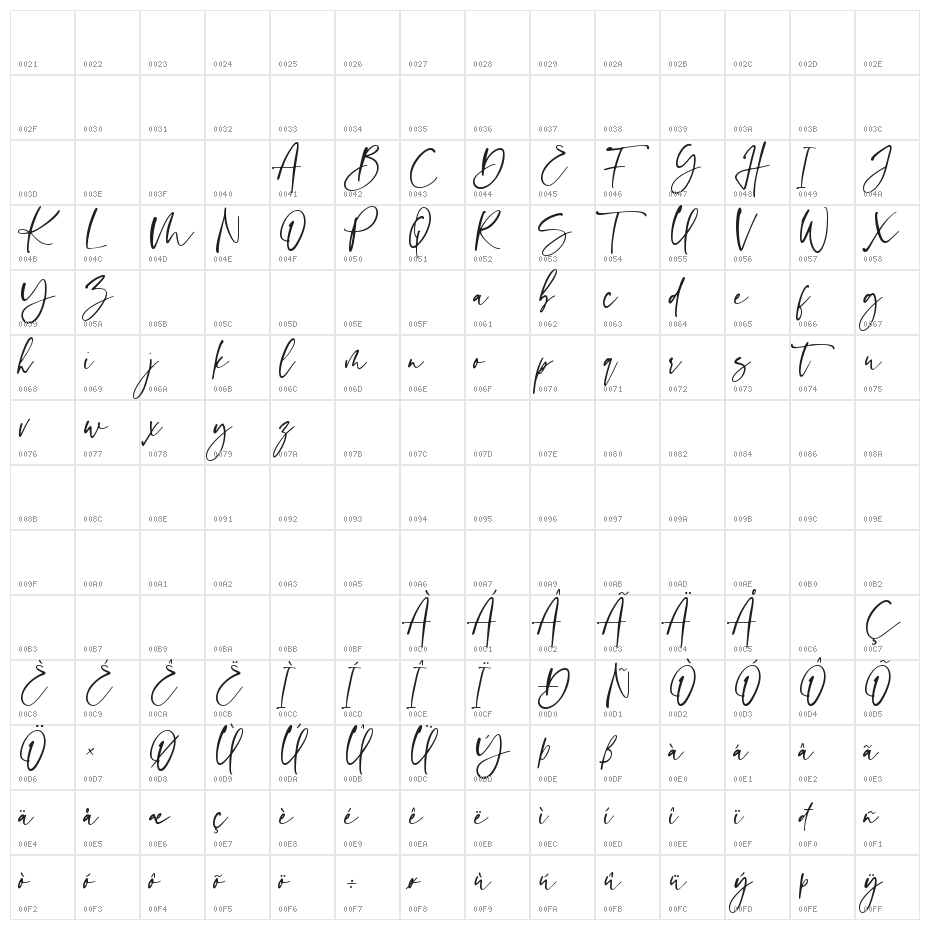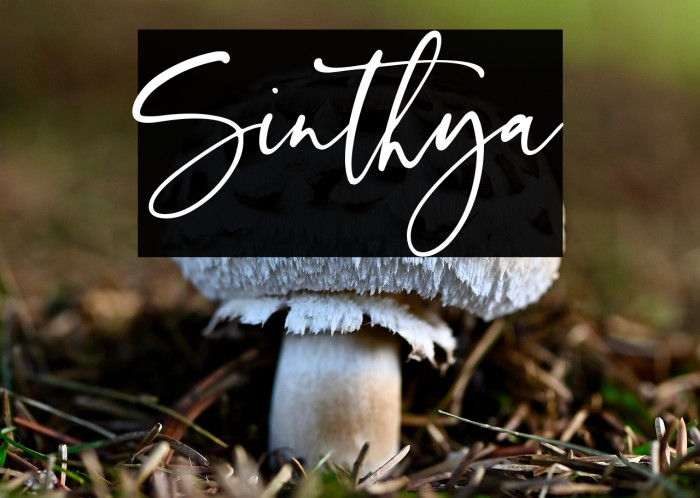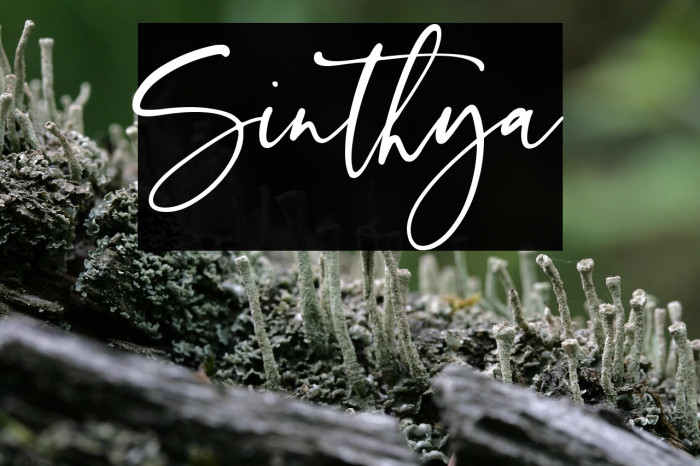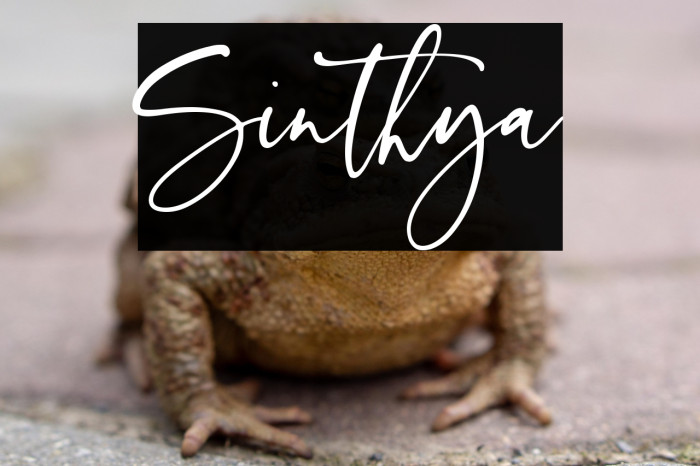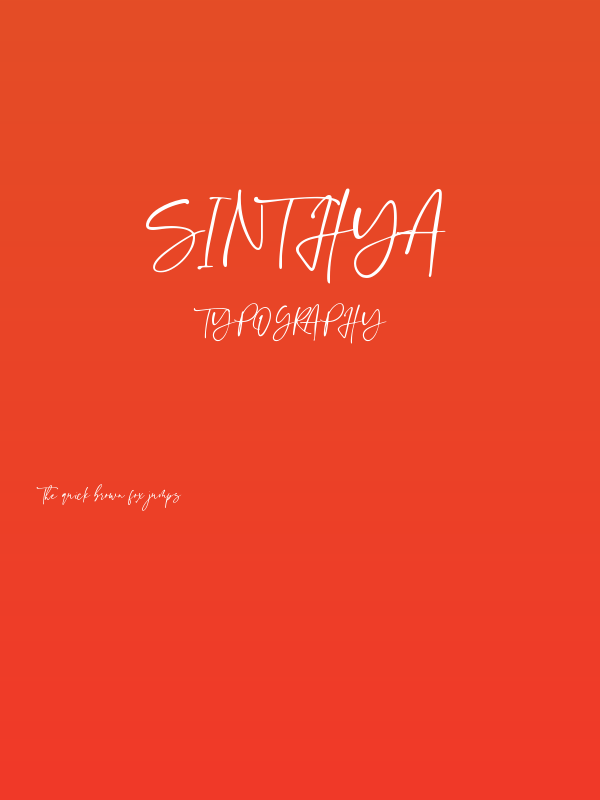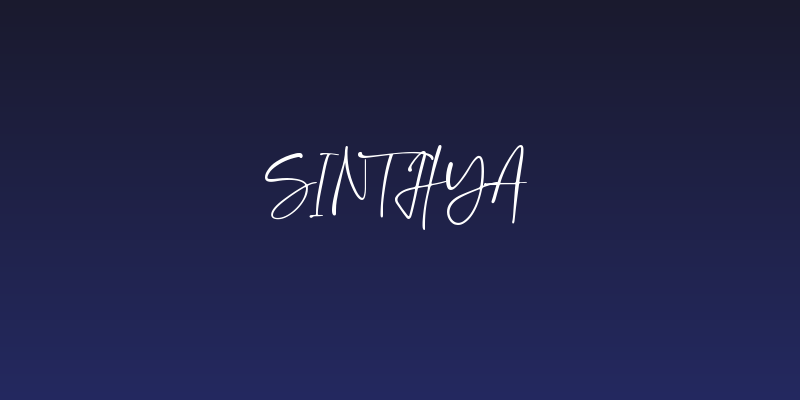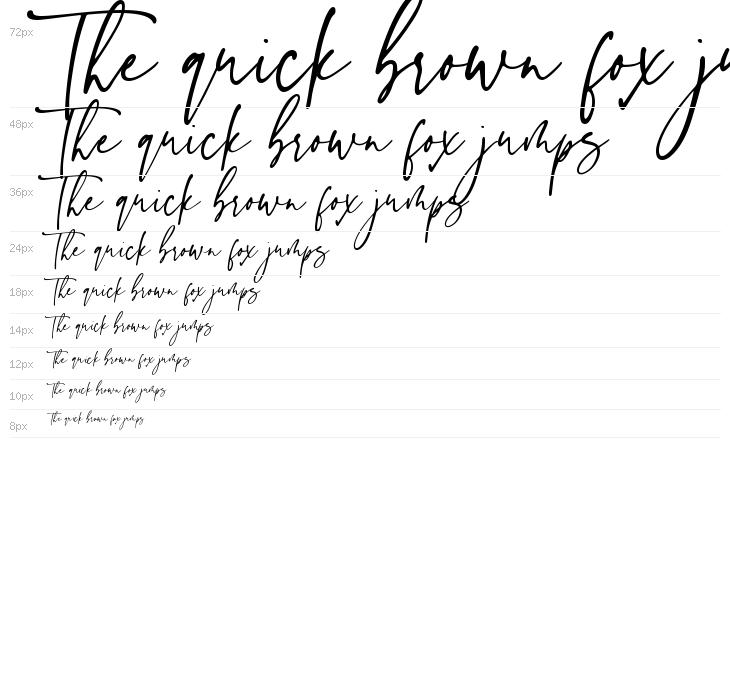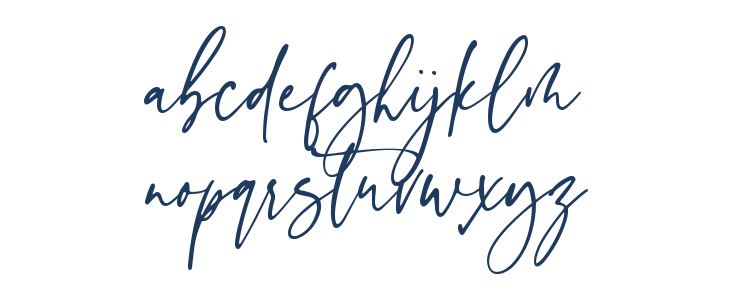
Sinthya Font
Sinthya Description
This font features a dynamic and flowing script style, characterized by its elegant and fluid letterforms. The strokes are smooth and connected, giving it a handwritten appearance that is both stylish and contemporary. The uppercase letters are tall and slightly slanted, while the lowercase letters maintain a consistent flow with occasional loops and flourishes. The overall look is sophisticated yet approachable, making it suitable for a variety of design applications. The font's organic feel is enhanced by its varying stroke thickness, adding a touch of personality and charm.
| Use Case | Logos, Invitations, Social Media |
| Proposed Projects | Ideal for wedding invitations, branding, greeting cards, and social media graphics. |